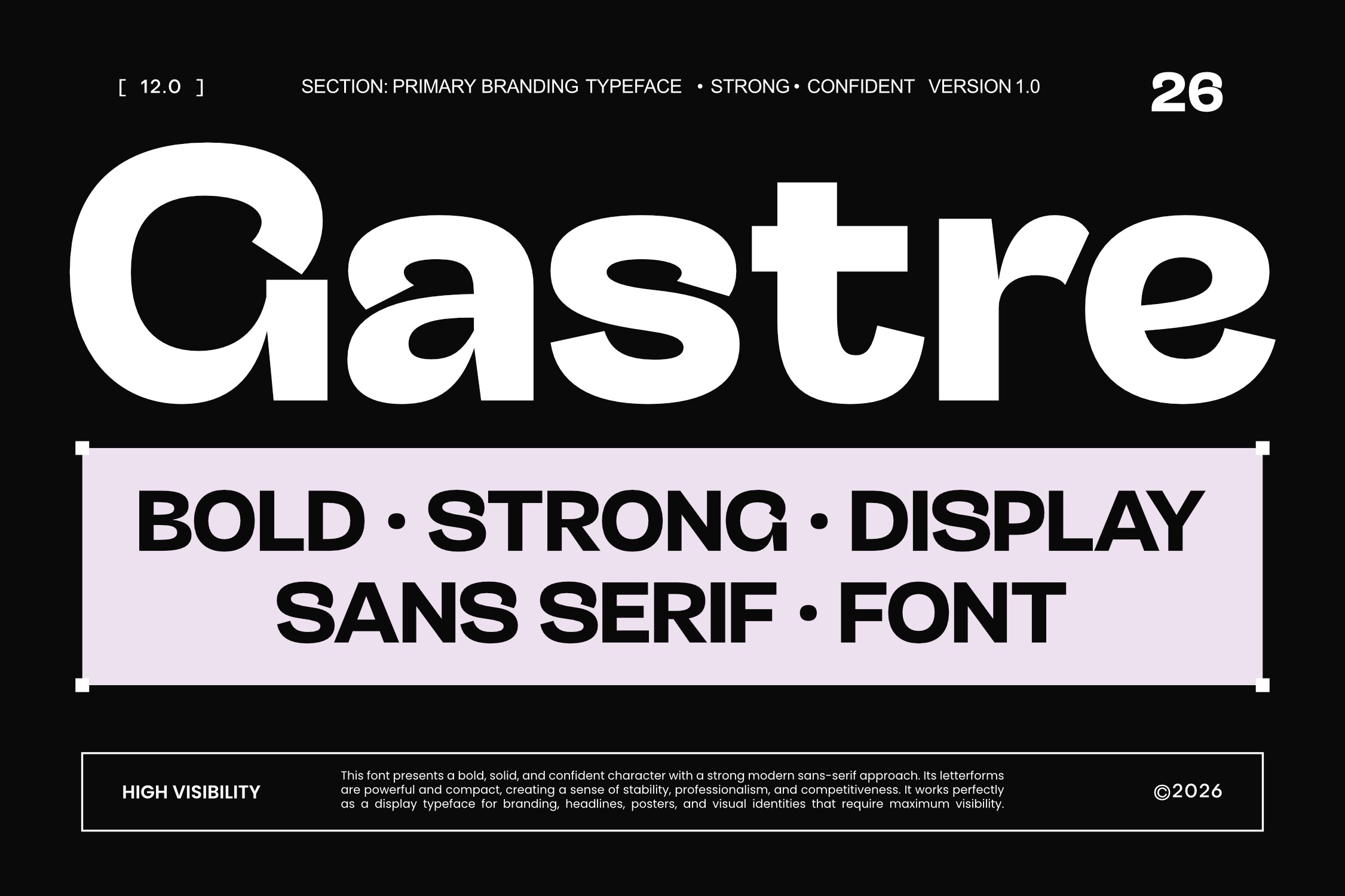
Gastre – Bold Sans Serif Font
Gastre – Bold Sans Serif Font brings a balanced structure and contemporary look, making it suitable for both digital and print design. Gastre is made for creators and brands who want to feel approachable and genuinely human. As a Display Sans Serif, it delivers strong visual clarity with a relaxed, and friendly character — designed to include everyone.
With its welcoming and casual nature, Gastre helps brands build honest emotional connections without feeling stiff or out of reach. Every letterform is crafted to make people feel like they truly belong.
Perfect for food & beverage and lifestyle brands — from product packaging and event posters to social media content — Gastre becomes a consistent, friendly voice across every touchpoint.
Tell your story with Gastre – the Sans Serif Display font that makes every word feel like a warm hello from someone you already trust.